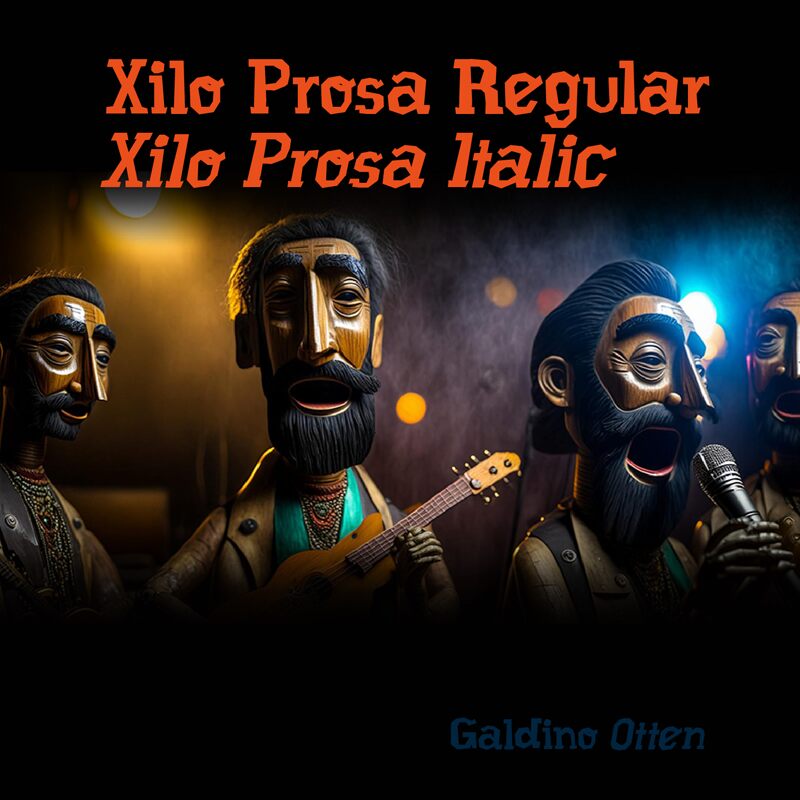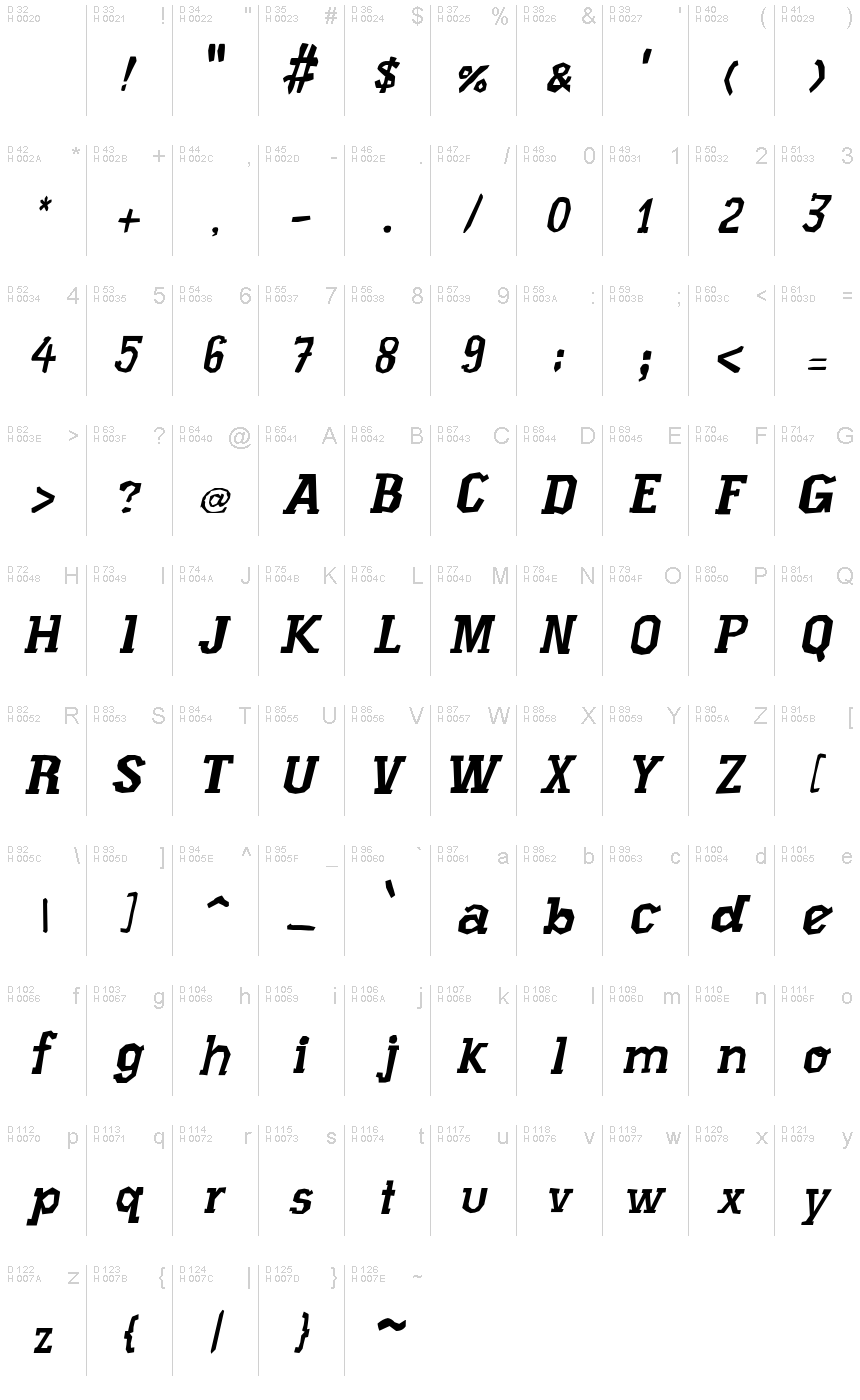
Xilo Prosa Italic
Xilo Prosa Italic, a captivating display font designed by Galdino Otten Fonts, exudes a striking elegance with its condensed proportions and refined, italic form. This typeface melds a harmonious balance of modern sophistication and classic charm, seamlessly blending bold strokes with delicate flourishes. Its unique character evokes a sense of timeless sophistication, making it a compelling choice for projects seeking to convey a refined, sophisticated aesthetic.
Xilo Prosa Italic's versatility shines through its ability to adapt to a wide range of design contexts, from high-end editorial layouts to impactful branding and packaging applications. Its condensed structure lends itself well to eye-catching headlines, while the italic styling adds a touch of dynamic flair to subheadings and typography-centric compositions. This font's distinctive personality can elevate the visual appeal of any project, making it a versatile and valuable addition to any designer's typographic toolkit.